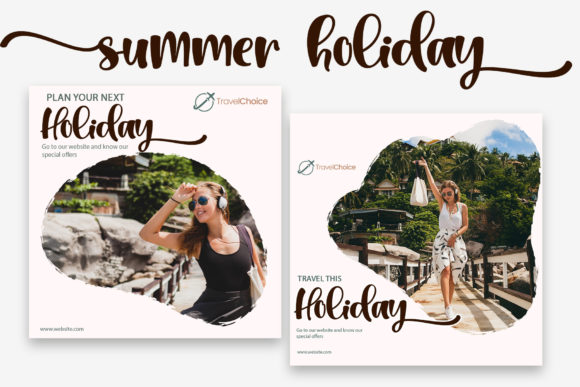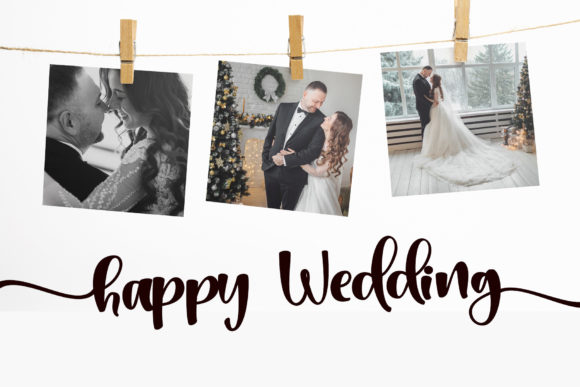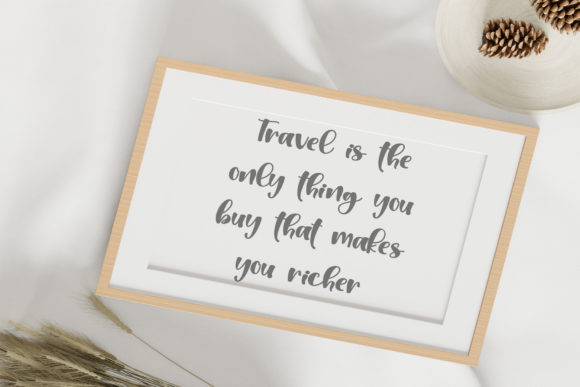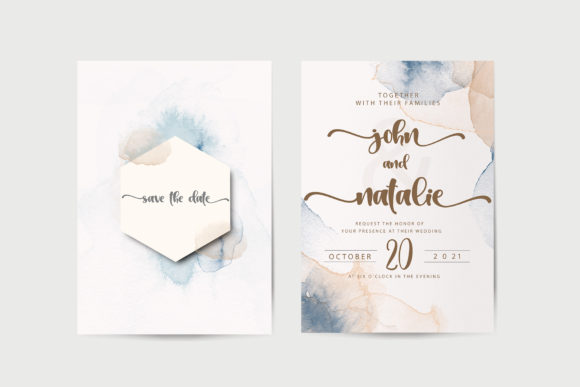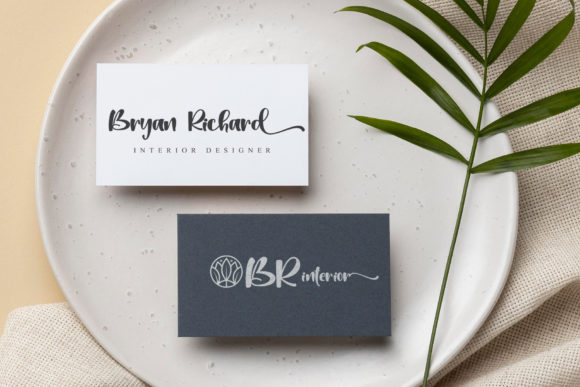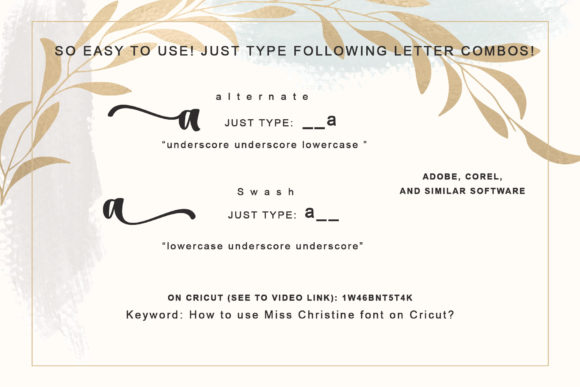
Introduction to Miss Christine Font Font
Fonts play a crucial role in design, and the Miss Christine Font font is a typeface that brings both character and versatility to any project. Whether you’re working on a branding project, a website, or a print design, the Miss Christine Font font offers a unique style that can elevate your work.
Miss Christine is a lovely and timeless handwritten font.
Every letter has a unique and beautiful touch, which will make your design come alive Miss Christine is PUA encoded which means you can access all of the glyphs and swashes with ease.
Key Features of Miss Christine Font Font
Why Choose Miss Christine Font Font?
The Miss Christine Font font is more than just a typeface – it’s a design tool that helps you communicate your message with style and clarity. Its unique character set and versatile design make it suitable for a wide range of applications, from elegant invitations to bold headlines.
With its carefully crafted letterforms and balanced proportions, the Miss Christine Font font ensures readability and visual appeal across all mediums.
What makes Miss Christine Font font special?
The Miss Christine Font font stands out with its unique design, exceptional readability, and versatility across various design applications.